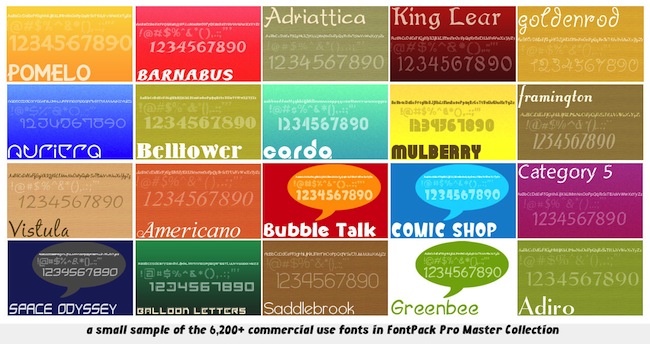
How good are these fonts?
I've never heard of "Macware", or their supposed font foundry. They're opentype, which could be good (assuming they're actually OTF/CFF fonts and not TTF)- but at the same time, I can't even find a friggin' list of what's included.
Frankly, given that most "commercial" fonts worth cash go for upwards of $300 per family, I'm kind of dubious. Is there anything in here that anyone can recommend? Or is it just a bunch of generic junk fonts and ripoffs?
How good are these fonts?
Well, the kerning is usable, but could be better.
Anyway, I think they are worth 2 $.
Some of the fonts can be used in real commercial projects, judging from they look, they are mostly OK. I am speaking of some families like Cerise, Alido, Arias, Banbridge etc.
But as you already wrote, most of the fonts in this package are just generic and similar to these freeware fonts you can find all over the internet.